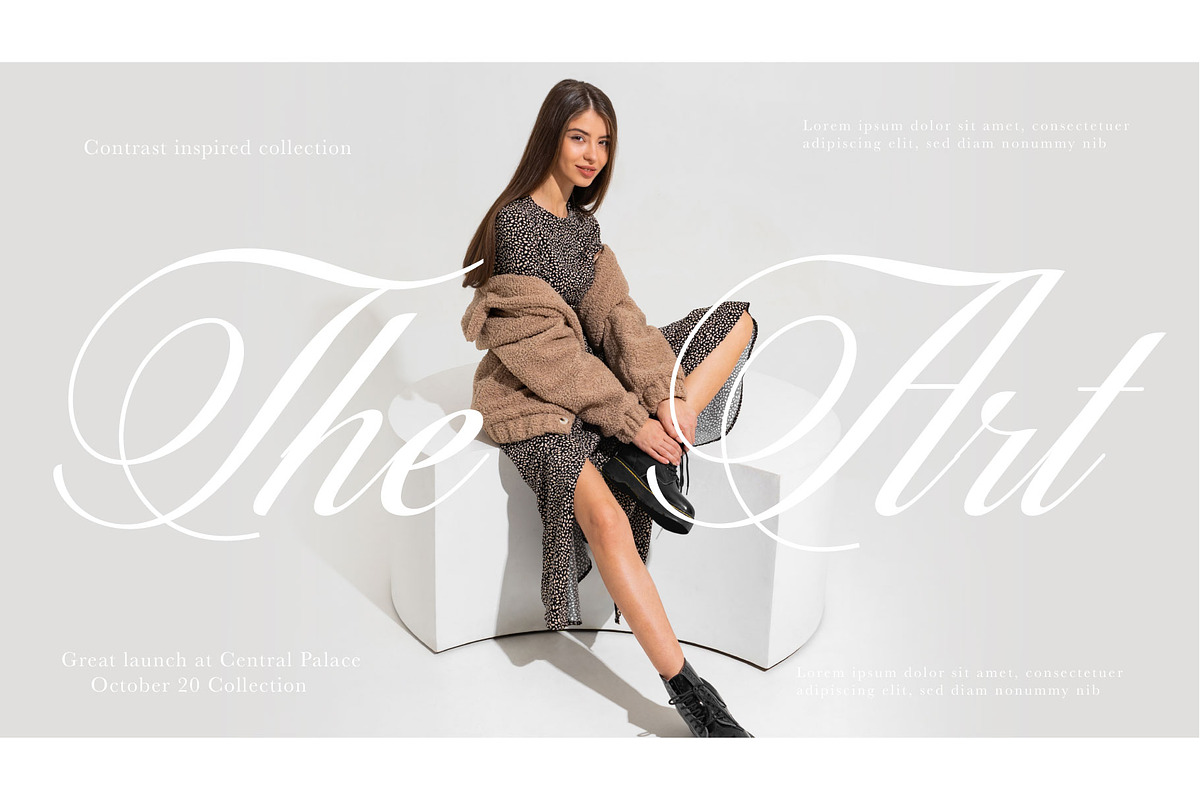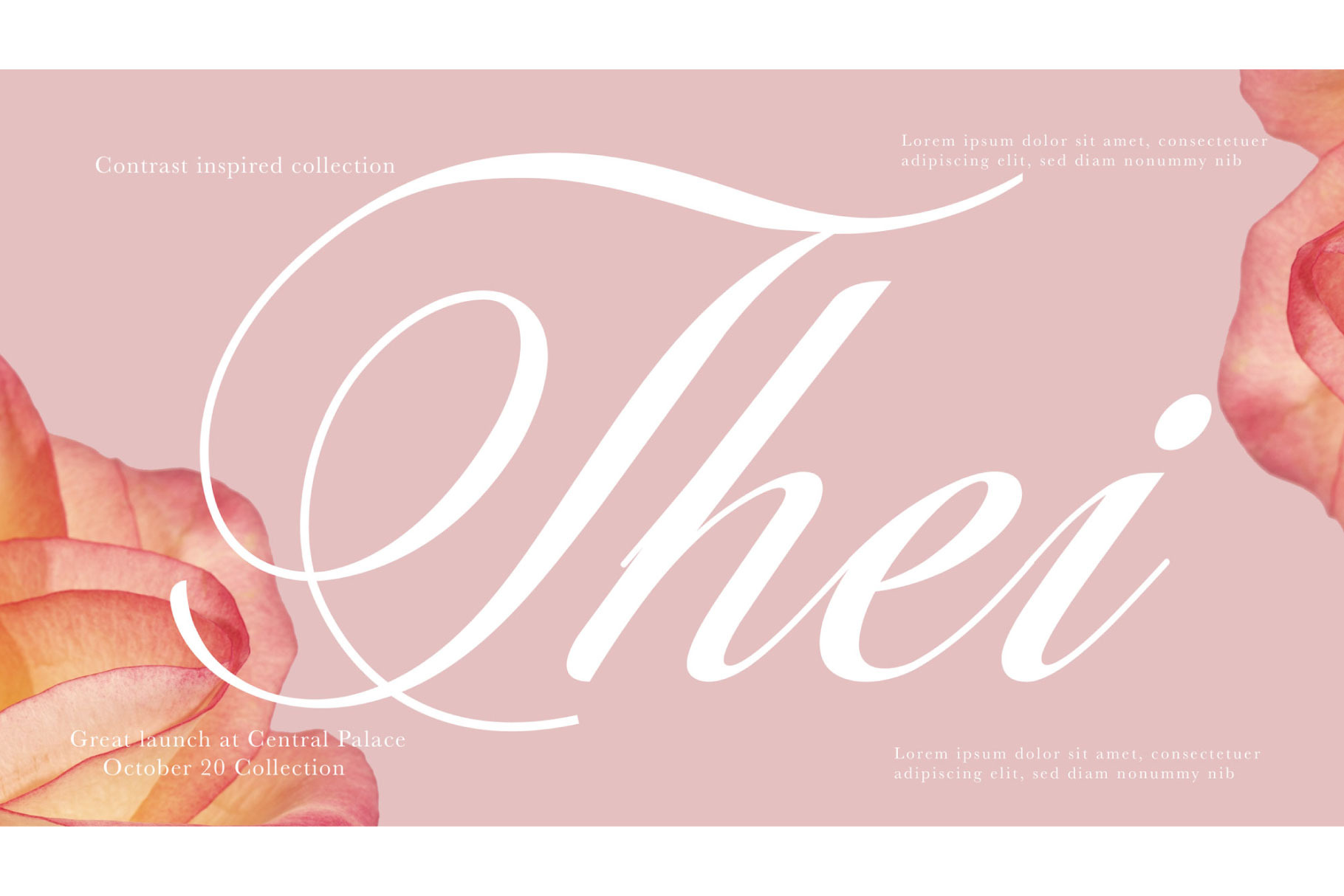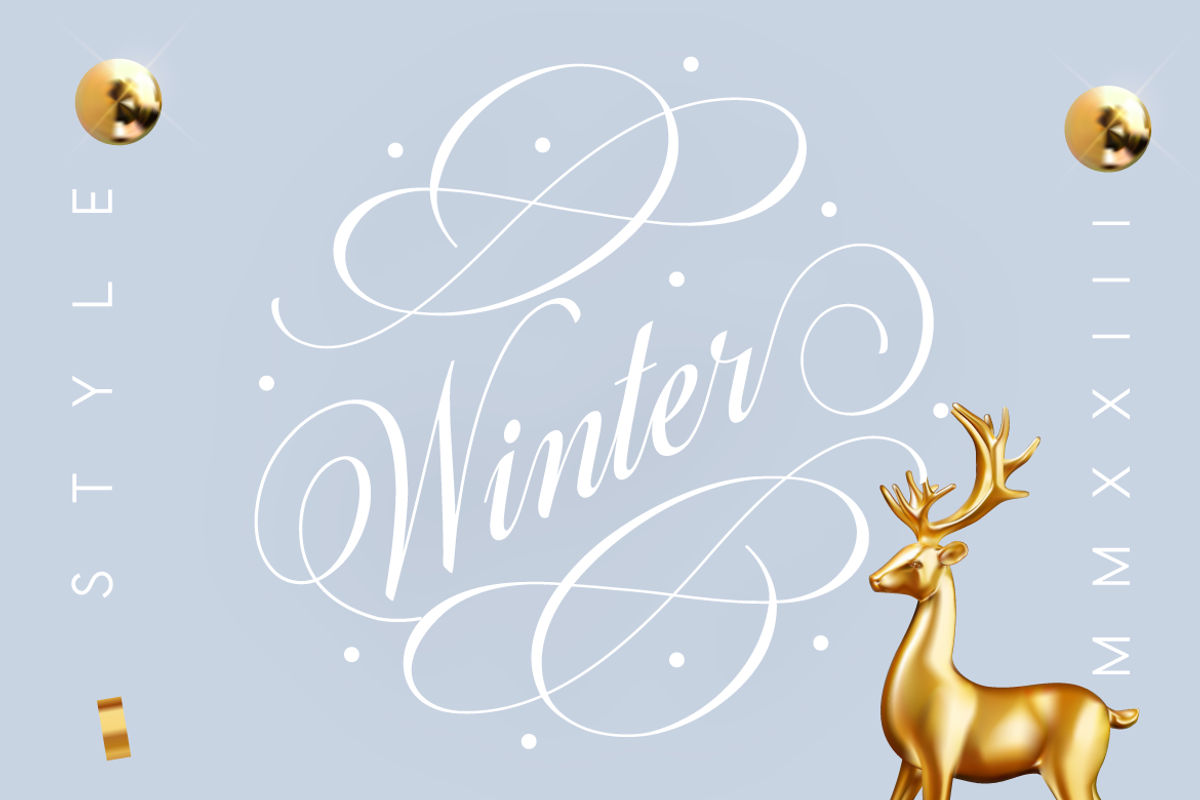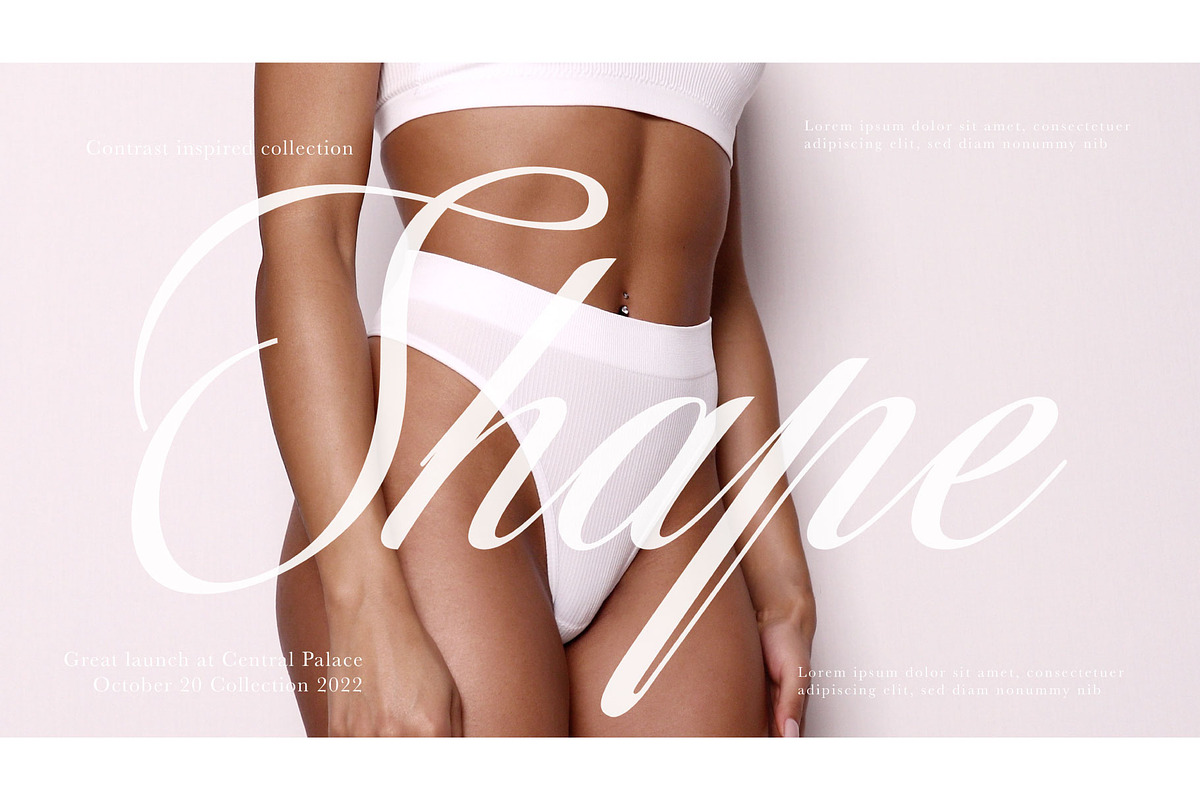
Thei: Calligraphy Font
Introducing Thei by Andfonts - Andrii Shevchyk. The font has been meticulously crafted to showcase a sense of luxury and refinement, with every letter carefully designed to create a stunning visual impact. Thei's character set includes upper and lowercase letters, numbers, and punctuation, making it a versatile font that can be used for a range of projects.
Thei's thin and delicate strokes create an air of sophistication that is perfect for high-end designs such as logos, headlines, names, packaging, invitations, and branding. The font's flowing lines are reminiscent of traditional calligraphy, yet its modern design ensures that it remains relevant and contemporary.
How quickly to create decor elements:
1.Type == (equal signs) many times.
Or type any Text========== Then move decor elements in the right position. ***Don’t change size of text during this process, because it may not create decor elements (ligatures).
Or choose the décor element in Glyphs category.
Check out also the lowercase alternative, which are pretty tails you can add at the end of words.